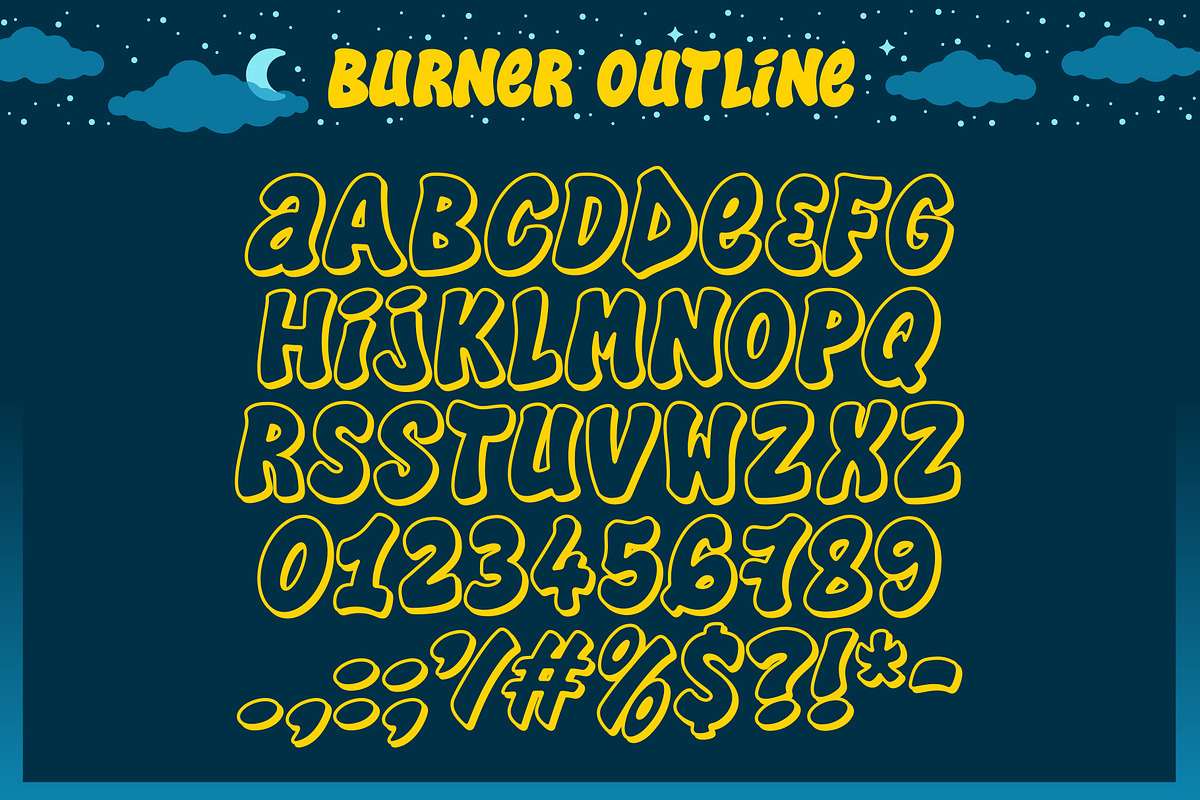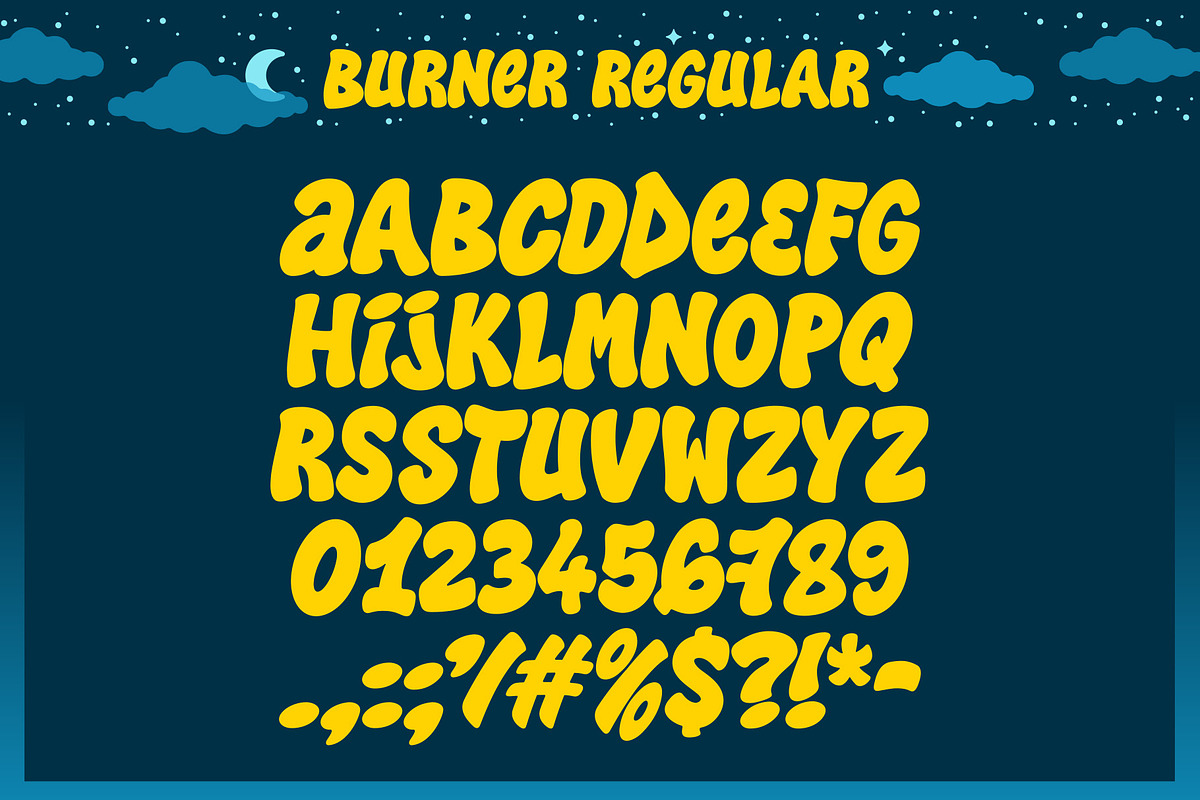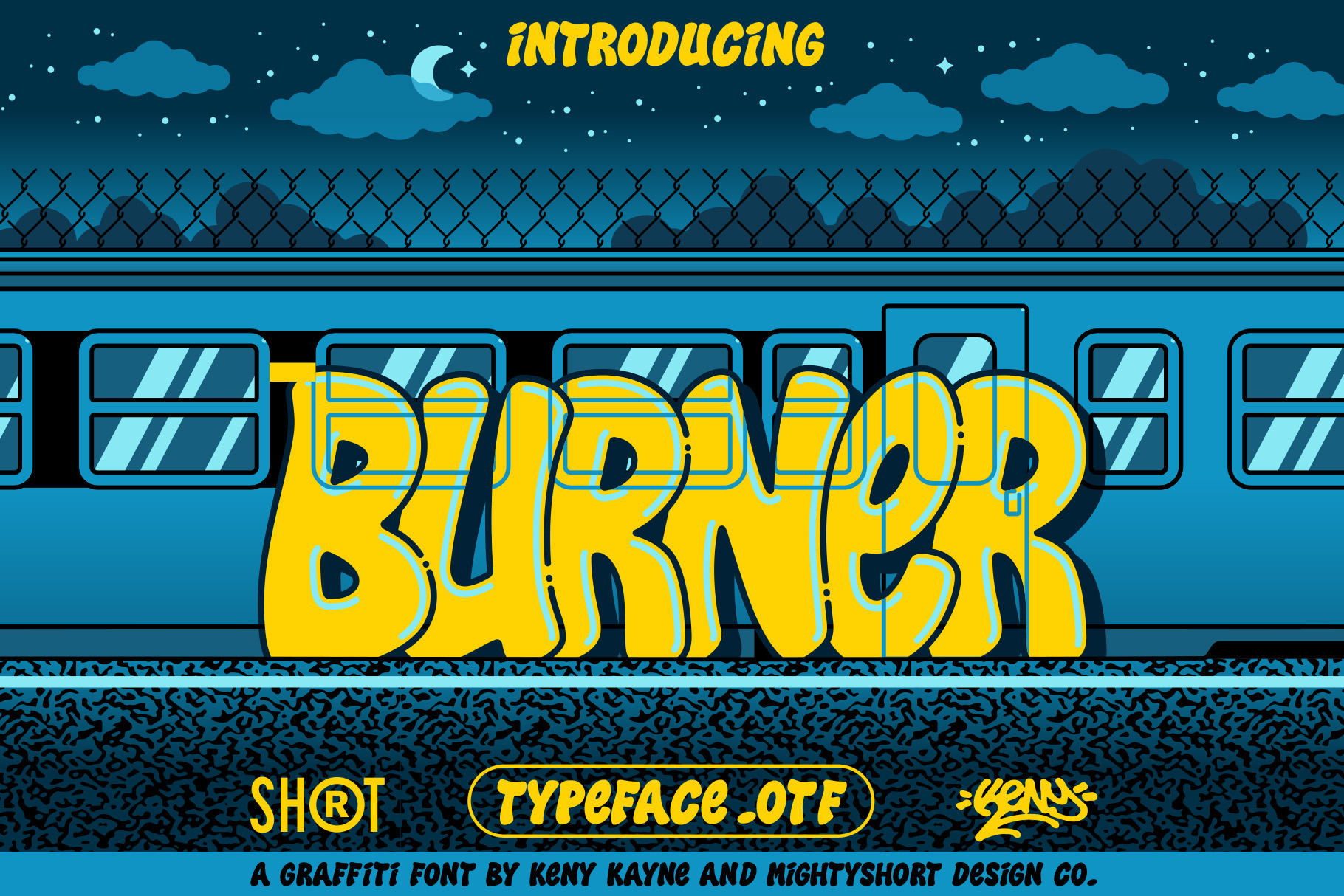
Burner Typeface
Burner is a bold, high-energy graffiti typeface born from the streets. Created in collaboration with French writer Kenykayne, this font is inspired by classic throw-ups, flops, and bubble letters—bringing raw, urban authenticity to your designs.
Available in two styles: Burner Regular for a solid, full look and Burner Outline for a dynamic, layered effect. Perfect for streetwear, posters, album covers, and anything that needs a smudge of graffiti culture.
🔥 Tag it. Flip it. Burn it. 🔥